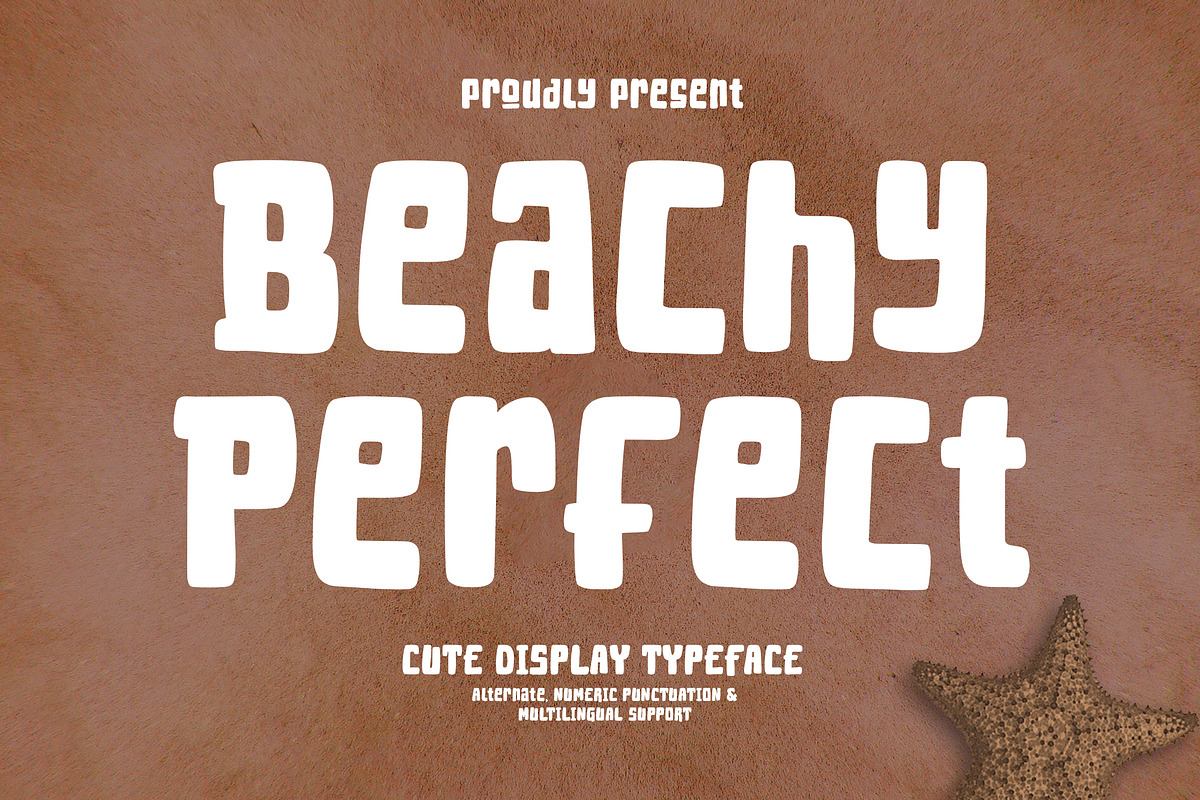
Beachy Perfect Font Free Download is a fun and breezy display typeface that captures the carefree vibe of summer days and coastal living. With its playful curves and relaxed letterforms, this font is perfect for beach-themed branding, vacation flyers, tropical party invites, swimwear packaging, and sunny social media content.
Whether you're designing for a surf shop, travel blog, or lifestyle brand, Beachy Perfect brings warmth and personality to every project. It’s the kind of font that instantly evokes sand, sea, and sun. Beachy Perfect Font Free Download allows you to test the font in personal use before purchasing a license for commercial applications.
Bring your designs to life with Beachy Perfect — the display font that radiates summer fun and laid-back charm.